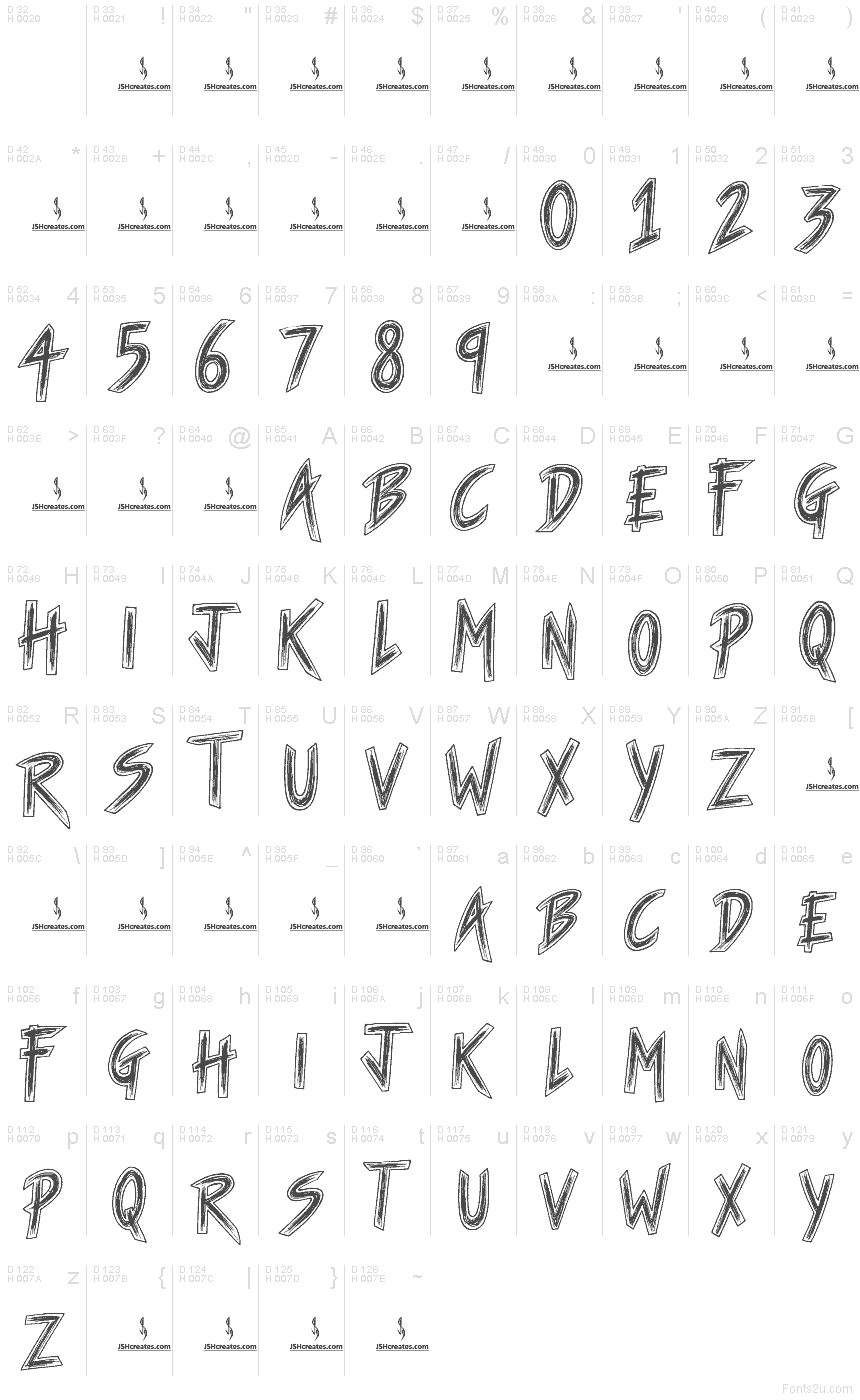
Ape Shit
Ape Shit typeface by JSH creates is a free comic font. It crackles with hand-inked energy—chunky strokes zig and taper, with scratched inner highlights that read like speed lines. The letters lean and lunge, edges rough and slightly splintered, giving you that messy, in-the-moment scrawl without sacrificing legibility. It feels loud, raw, and a little unhinged—in the best way.
Using Ape Shit, your headlines hit like a snare: great for gig posters, skateboard decks, zines, horror-comedy titles, protest stickers, streetwear logos, and punchy thumbnails. This free font shines at oversized scales; tighten tracking to condense the chaos. Pair with a clean condensed sans for body copy to keep the spotlight on its wild, scratchy rhythm.